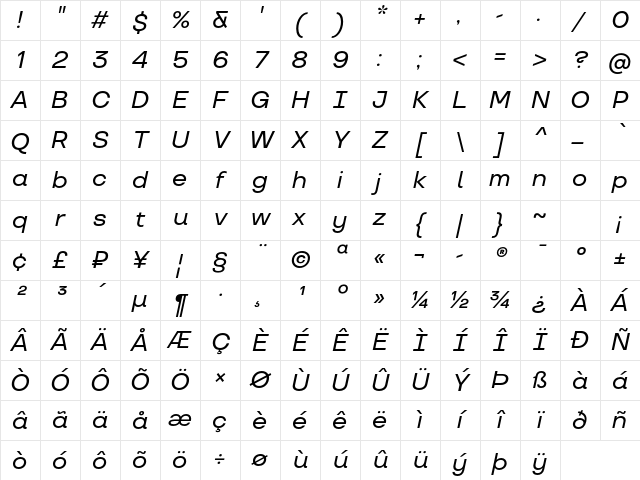
TT Travels Trl Medium Italic
Design Context for TT Travels Trl
TT Travels Trl is a composed and adaptable typeface that performs quietly and consistently across a wide range of design contexts. The slanted form adds forward momentum and visual energy.
Pro Tip: Use TT Travels Trl for emphasis, pull quotes, and subheadings where its slanted energy can add rhythm to the layout.